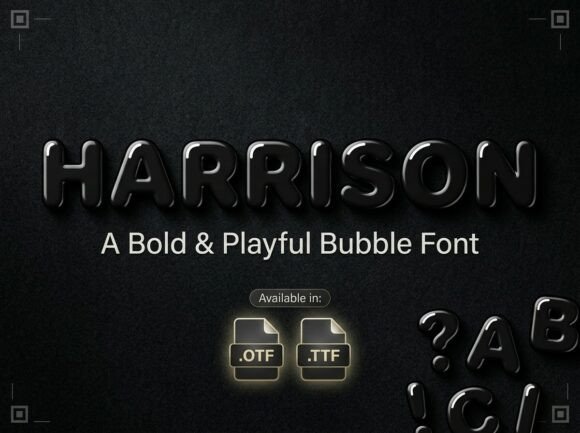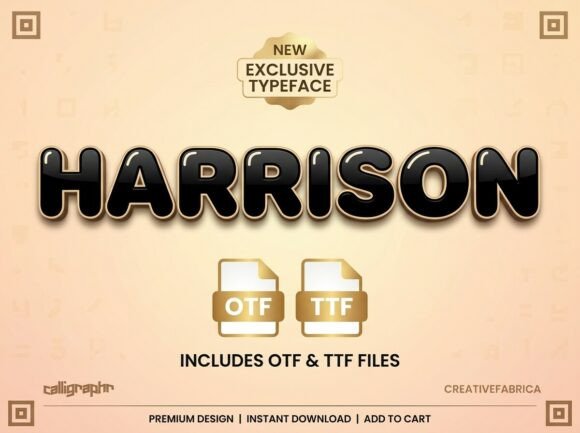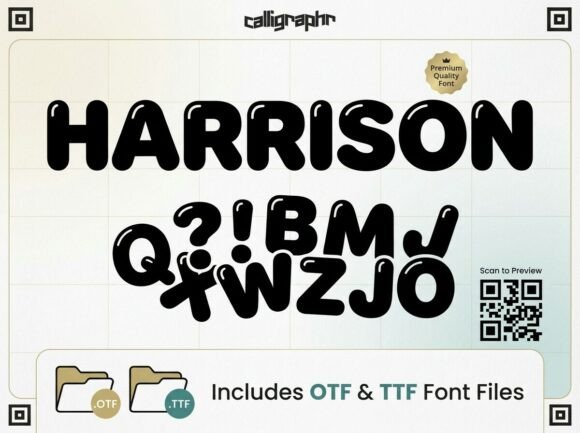
Introducing Harrison Font: The Ultimate Decorative Display Font
Are you tired of using the same old fonts for your designs? Look no further than Harrison Font, a stunning decorative display font that’s sure to turn heads. With its unique artistic elements and strong visual personality, this font is perfect for creators who want to break away from the ordinary and make a statement.
Harrison Font is designed to be the center of attention, making it ideal for bold headlines, artistic logos, and creative packaging. Its versatility ensures that it can be used in a variety of design projects, from branding and advertising to packaging and editorial design. Whether you’re a graphic designer, crafty DIY enthusiast, or online content creator, this font is sure to elevate your work to the next level.
What to Expect from Harrison Font
⚠️ Before making a purchase, it’s essential to note that Harrison Font is an ALL-CAPS (Uppercase Only) display typeface. This means that it does not include lowercase letters. The font is specifically designed for high-impact headlines, logos, and decorative initials where every letter is a work of art. This unique design approach ensures that each letter can be showcased in all its glory, making it perfect for attention-grabbing applications.
Harrison Font is a dream come true for designers and crafters who want to add a touch of elegance and sophistication to their work. With its professional and polished finish, this font is ideal for:
- Graphic Design: Use Harrison Font to create stunning logos, brochures, and business cards that will leave a lasting impression.
- Crafting and DIY: Add a touch of personality to your craft projects, such as handmade cards, gift tags, and iron-on designs.
- Online Content Creation: Elevate your blog posts, social media graphics, and video titles with this eye-catching font.
Tips for Using Harrison Font
To get the most out of Harrison Font, here are a few tips to keep in mind:
- Use it sparingly: Due to its bold and attention-grabbing nature, it’s best to use Harrison Font in moderation. Use it for headlines, titles, or key phrases to create visual interest.
- Experiment with colors and textures: Don’t be afraid to try out different colors and textures to add depth and visual interest to your designs.
- Pair it with complementary fonts: For body text or supporting information, pair Harrison Font with a clean and simple font to create visual contrast.
In conclusion, Harrison Font is an exceptional decorative display font that’s perfect for creators who want to make a statement. With its unique artistic elements, strong visual personality, and versatility, this font is sure to elevate your designs to the next level. Whether you’re a designer, crafter, or online content creator, Harrison Font is an excellent addition to your font library.